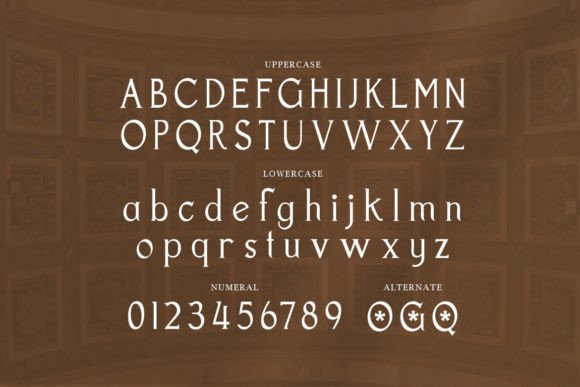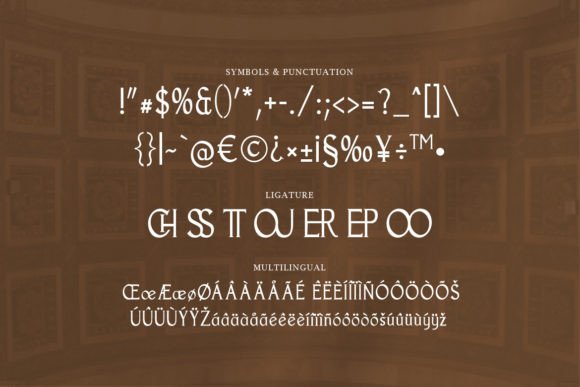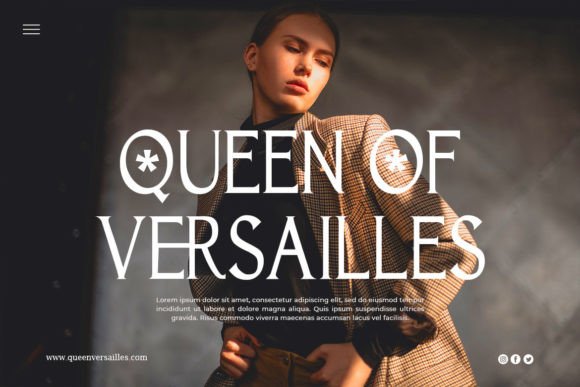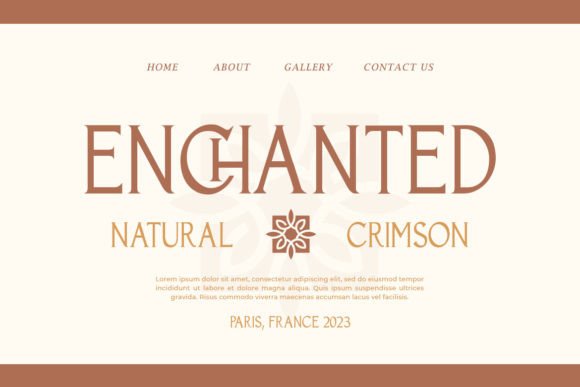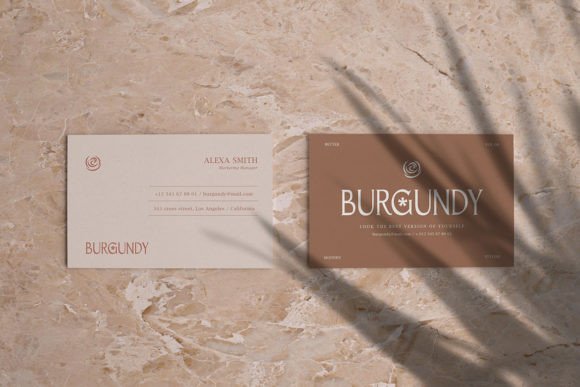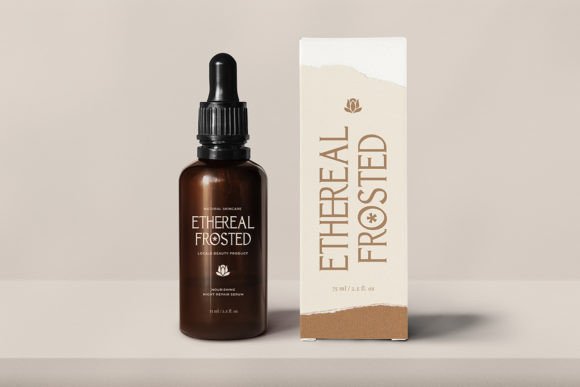
Introduction to Glacherass Font
Glacherass is a modern serif that blends traditional influences into a contemporary aesthetic.
Elegantly crafted and easily matched to an incredibly large set of projects Use this font to achieve an exquisite, yet subtle look and maximum versatility.
Key Features of Glacherass Font
Why Choose Glacherass Font?
Glacherass Font offers exceptional quality and versatility, making it a valuable addition to your design toolkit. Whether you’re creating for personal projects or commercial use, Glacherass Font delivers professional results.